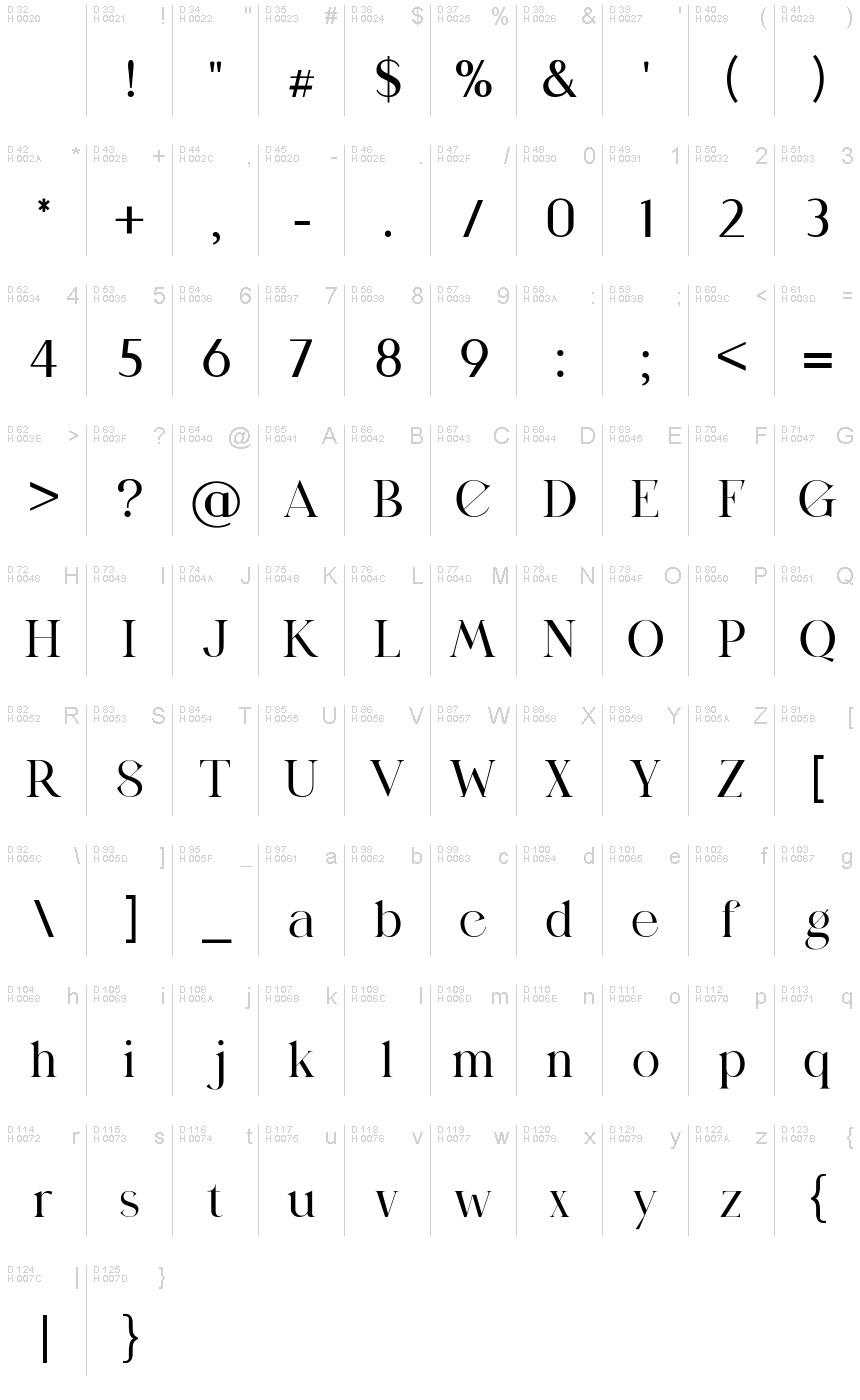
Sugardays
Sugardays, designed by UI Creative, exudes a refined elegance with its sophisticated serif style. The font’s graceful curves and delicate details create an air of timeless charm, making it a perfect choice for projects that demand a touch of class and readability. Its slightly expanded characters enhance the overall visual appeal, providing a harmonious balance between tradition and modernity.
Ideal for branding, editorial designs, wedding invitations, and high-end product packaging, Sugardays offers versatility without compromising on its distinguished aesthetic. The unique character shapes add personality to any text, ensuring that your message stands out with poise and clarity. Embrace the allure of Sugardays to elevate your design projects with its elegant yet approachable style.